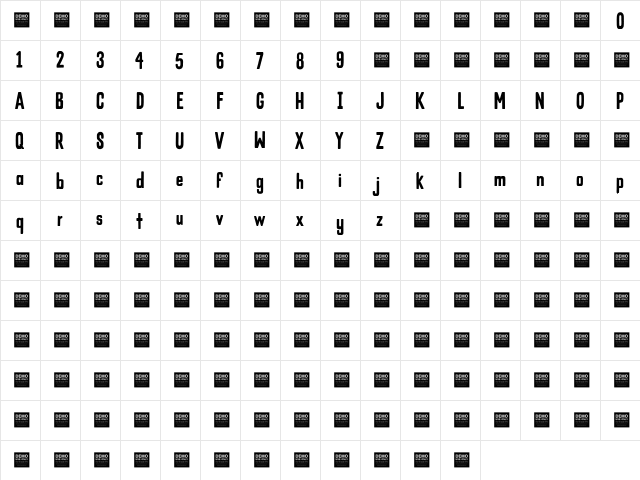
Cold Crush - Demo Regular
Design Context for Cold Crush - Demo Typeface
Cold Crush - Demo offers clean, dependable letterforms without strong stylistic allegiance, making it a practical choice for designers who need flexibility.
Pro Tip: Pair Cold Crush - Demo with a font of contrasting weight or personality to build a more expressive typographic hierarchy.